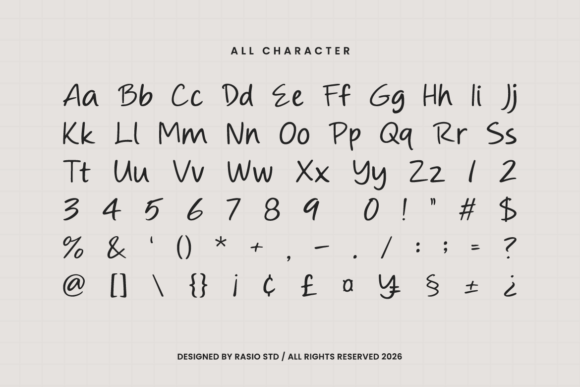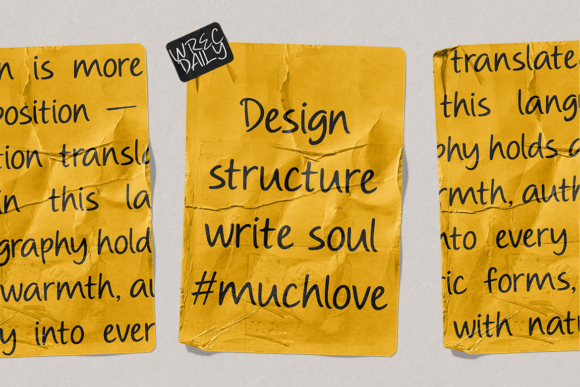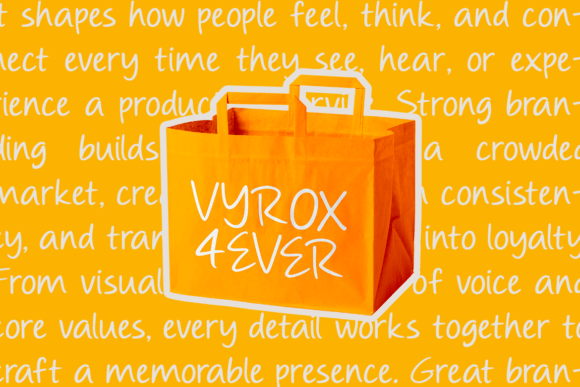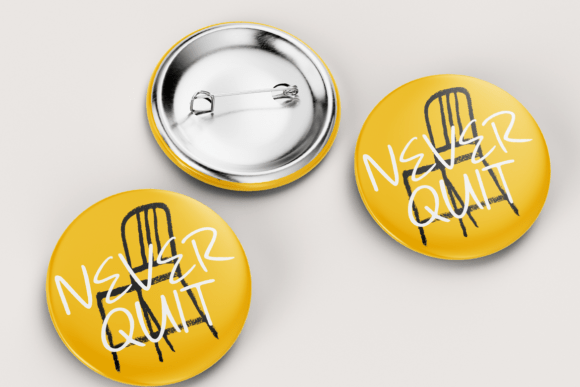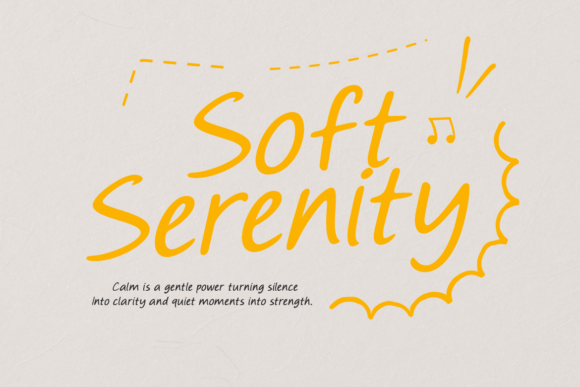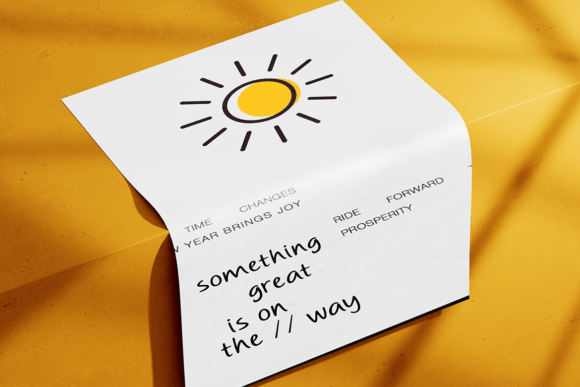
Introducing Daily Sunny Font: The Cheerful Handwritten Script to Brighten Up Your Designs
Are you tired of using the same old fonts in your designs? Do you want to add a touch of warmth and personality to your typography? Look no further than Daily Sunny Font, a cheerful handwritten script font that’s perfect for designers and crafters looking to bring a friendly and approachable vibe to their work.
Inspired by Bright Days and Relaxed Creative Moments
Daily Sunny Font is inspired by the feeling of bright days and relaxed creative moments. Its smooth flowing strokes, playful curves, and natural handwritten rhythm make it the perfect choice for designs that need a personal touch. Whether you’re working on a branding project, social media graphics, or a personal craft, Daily Sunny Font is sure to bring a smile to your face and a touch of warmth to your design.
A Casual Style that Feels Warm and Expressive
One of the standout features of Daily Sunny Font is its casual style. Unlike more formal fonts, Daily Sunny feels warm, expressive, and full of character. Its handwritten style makes it perfect for designs that need a personal touch, such as greeting cards, posters, and packaging. The font’s natural rhythm and flow also make it easy to read and understand, making it a great choice for body text and headings.
Daily Sunny Font is a versatile font that’s perfect for a wide range of design applications. Here are just a few ways you can use Daily Sunny to enhance your designs:
- Branding: Use Daily Sunny Font to create a friendly and approachable brand identity that’s perfect for lifestyle and creative businesses.
- Social Media Graphics: Add a personal touch to your social media graphics with Daily Sunny Font’s playful and expressive style.
- Greeting Cards: Create beautiful and heartfelt greeting cards with Daily Sunny Font’s warm and handwritten style.
- Lifestyle Designs: Use Daily Sunny Font to add a touch of warmth and personality to your lifestyle designs, such as posters, packaging, and marketing visuals.
Why Choose Daily Sunny Font?
So why choose Daily Sunny Font over other fonts? Here are just a few reasons why designers and crafters love Daily Sunny:
- Unique and Expressive: Daily Sunny Font has a unique and expressive style that’s sure to stand out in any design.
- Easy to Read: Despite its handwritten style, Daily Sunny Font is easy to read and understand, making it perfect for body text and headings.
- Versatile: Daily Sunny Font is a versatile font that can be used in a wide range of design applications, from branding and social media graphics to greeting cards and packaging.
- High-Quality: Daily Sunny Font is a high-quality font that’s designed to deliver exceptional results in any design.
Get Creative with Daily Sunny Font